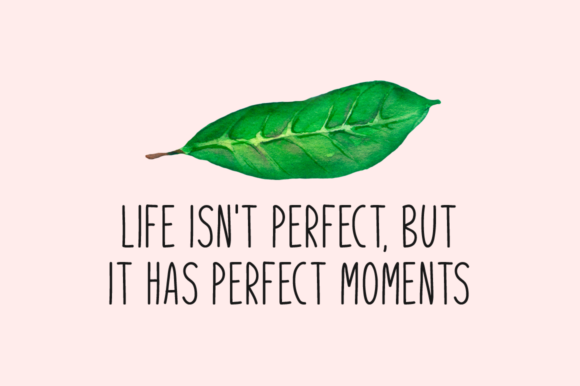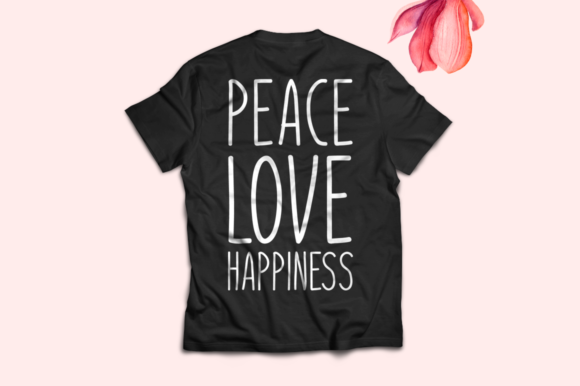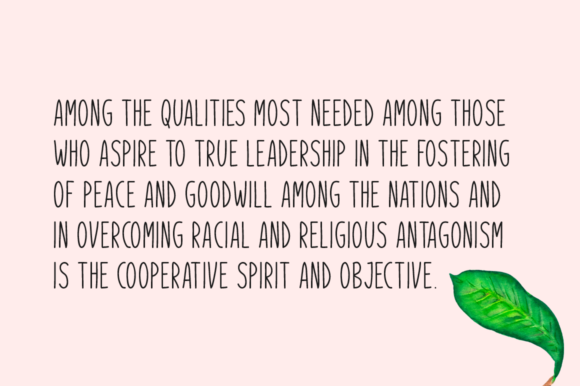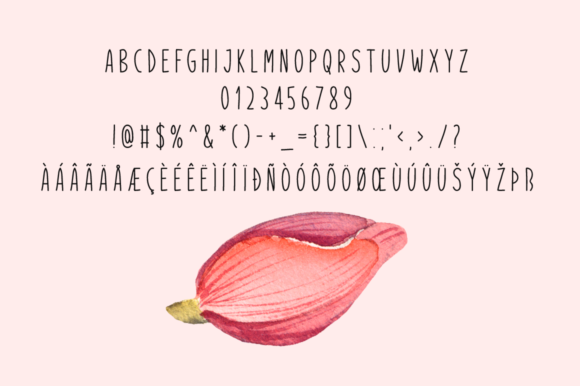
Our Goodwill Font
About Our Goodwill Font
Our Goodwill is a beautiful handwritten font. This versatile script font has a wide range of applications ranging from greeting cards to kids’ crafts, and is guaranteed to add a sweet touch to your next design.